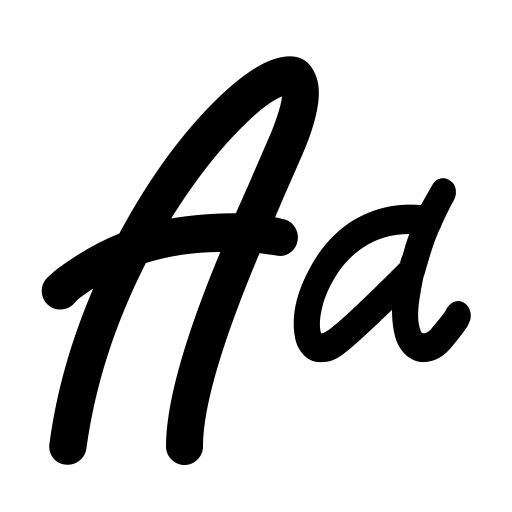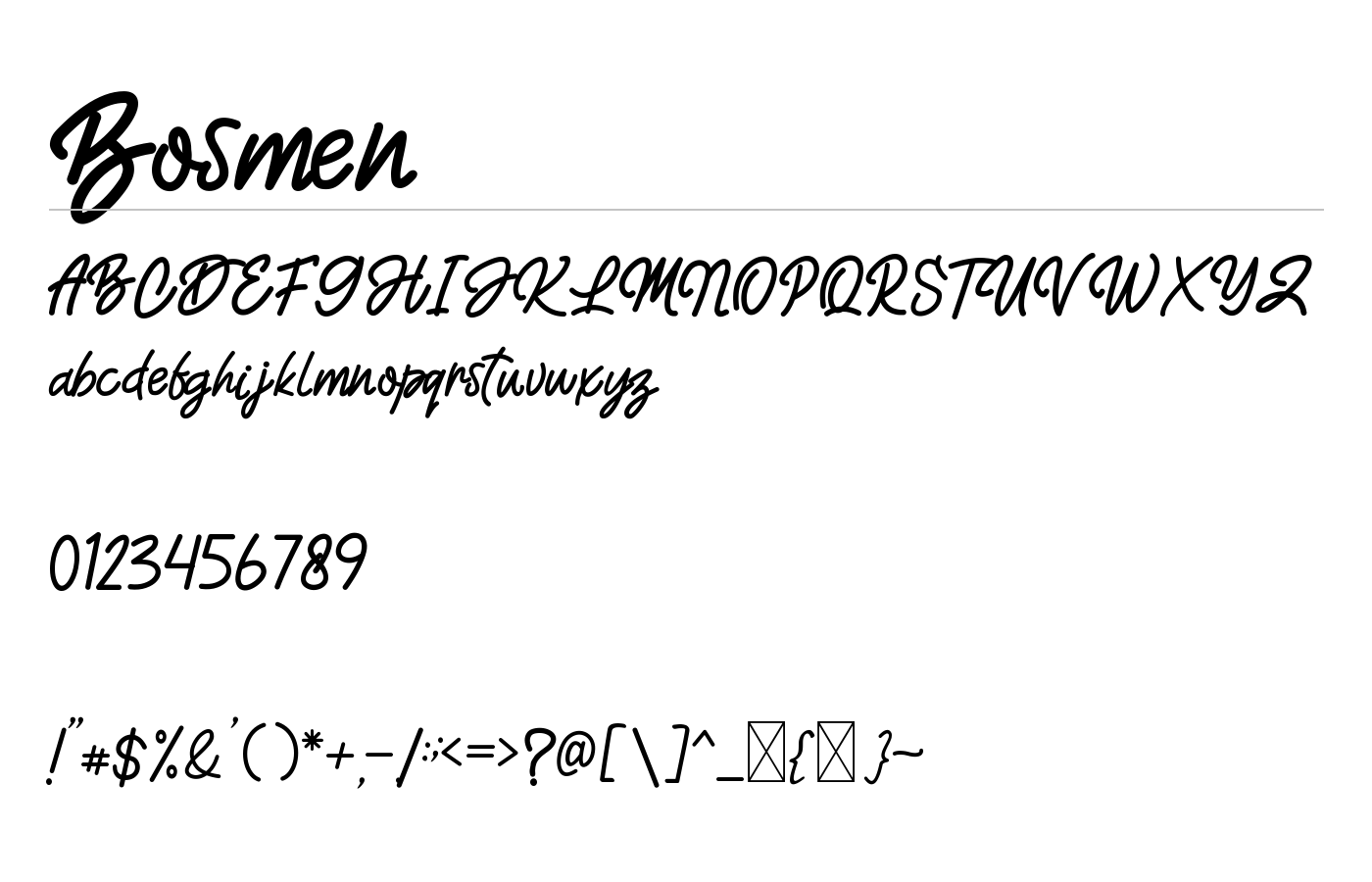
Bosmen is a lively, casual script font with a smooth, handwritten style that feels friendly and approachable. Its moderate weight and slightly condensed forms give it a neat, modern look, while the flowing strokes add a touch of elegance suitable for creative branding, invitations, and social media designs. This font works perfectly where a personal, yet polished, aesthetic is desired.
Bosmen Font
About Bosmen Font
| Font family | Bosmen Font |
| Designer | Christmas Kalingga Abed Nego |